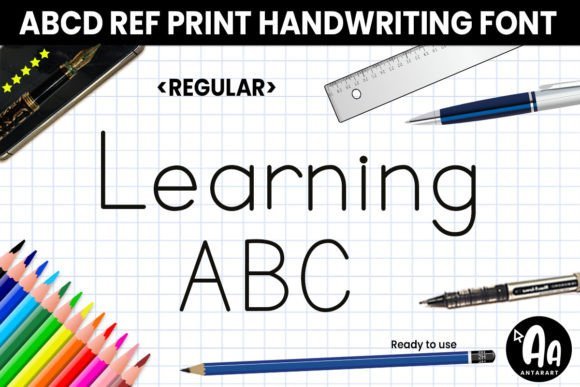
Unlocking the Power of ABCD Ref Regular Font
Do you remember the excitement of learning the alphabet as a child? The thrill of mastering each letter, the sense of accomplishment with each new skill acquired? For many of us, those early days of learning were some of the most enjoyable and formative experiences of our lives.
For designers and educators looking to create engaging and interactive learning materials, the ABCD Ref Regular Font offers a simple yet powerful solution. Based on the D’Nealian Method US school, this display font is designed to help you create thousands of worksheets and learning resources that make learning the print alphabet a fun and enjoyable experience.
Whether you’re a designer looking to add a touch of whimsy to your educational materials or an educator seeking to make learning more interactive and engaging, the ABCD Ref Regular Font is a valuable resource that’s sure to inspire creativity and delight.
Abcd Ref Regular Font Key Features
- Font Family: Abcd Ref Regular, a sans-serif font designed for readability and clarity.
- Unique Characteristic: The Abcd Ref Regular font features a unique x-height and line spacing, making it highly legible and easy to read, even at small font sizes.
- Language Support: Supports a wide range of languages, including Latin, Cyrillic, and Greek scripts, making it a versatile choice for global design projects.
Designer Review: Abcd Ref Regular Font
Overall, I think Abcd Ref Regular Font is a decent choice for body text, especially in digital applications. ✨ Its clean lines and moderate x-height make it easy to read, even at smaller font sizes.
- ✨ Consistent spacing between letters and words: This makes the text feel more organized and easier to read.
- ✨ High legibility: As I mentioned earlier, the font is easy to read, even in digital formats.
- ✨ Versatile: Abcd Ref Regular Font can be used in a variety of contexts, from business reports to marketing materials.
- ⚠️ Limited expressiveness: Abcd Ref Regular Font is a fairly neutral font, which can make it difficult to convey emotions or personality through typography.
- ⚠️ May not be suitable for creative or artistic projects: If you’re looking for a font that can add a touch of personality to your design, Abcd Ref Regular Font might not be the best choice.
Overall, I think Abcd Ref Regular Font is a solid choice for body text in digital applications, but it may not be the best option for projects that require a lot of expressiveness or creativity.
Abcd Ref Regular is a versatile font that works well for headings and body text. Use it to create a clean and modern design.
Abcd Ref Regular is a great font for creating professional-looking graphics and designs.
Abcd Ref Regular is a great font for creating presentations and documents that need a clean and modern look.
Abcd Ref Regular font is commonly used for:
- Body text for articles and blog posts
- Labels and captions for graphics and images
Alternatives to Abcd Ref Regular Font